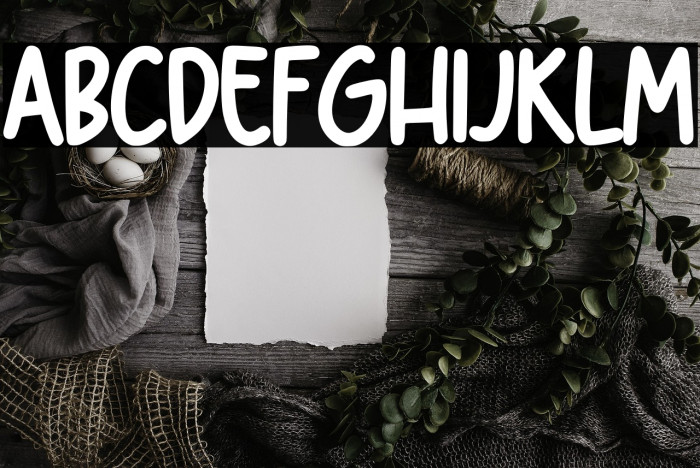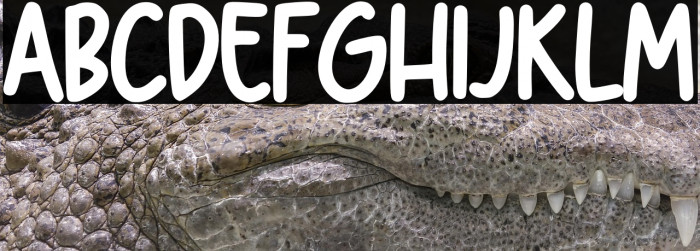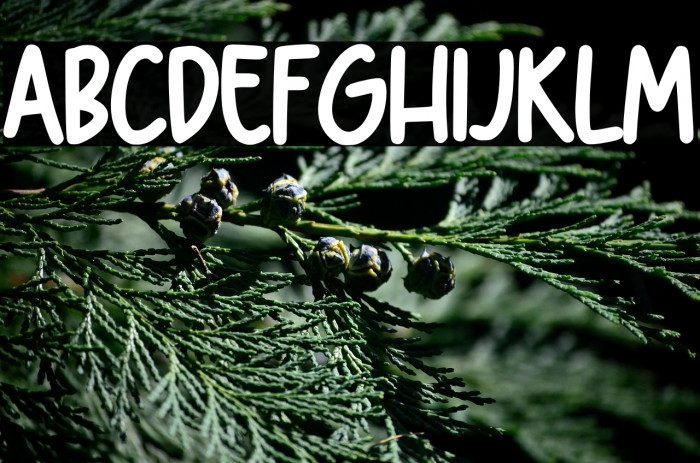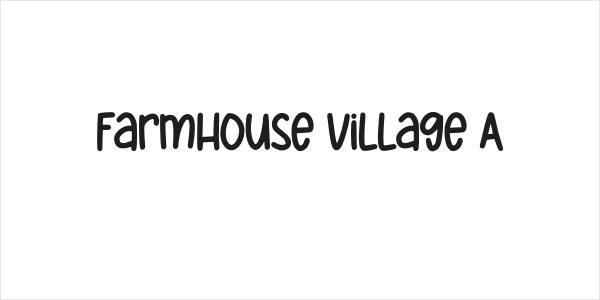
Farmhouse Village A Font
Farmhouse Village A Description
This font features a playful and casual handwritten style, characterized by its rounded and slightly irregular letterforms. The uppercase and lowercase letters maintain a consistent flow, giving it a friendly and approachable appearance. The numbers and special characters follow the same style, ensuring uniformity across all glyphs. The font's informal nature makes it ideal for projects that require a personal touch, such as invitations, greeting cards, or children's books.
| Use Case | Invitations, Greeting cards, Children's books |
| Proposed Projects | Ideal for invitations, greeting cards, children's books, and casual branding. |